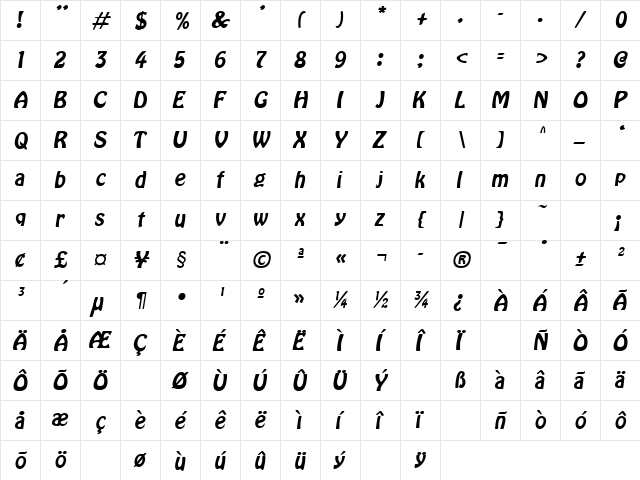
Hobo Oblique
Design Context for Hobo Typeface
Hobo is a composed and adaptable typeface that performs quietly and consistently across a wide range of design contexts. The dynamic lean of this cut emphasises speed and emphasis in any layout.
Pro Tip: Try Hobo for annotation and caption copy alongside an upright companion — the contrast in angle creates a dynamic but ordered typographic system.